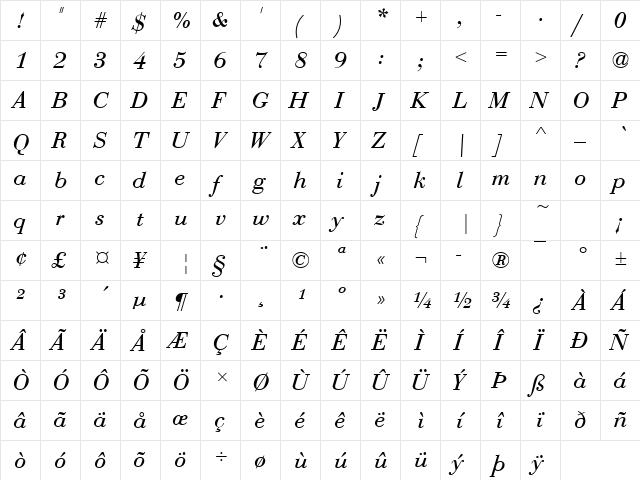
BauerBodT Italic
Design Context for BauerBodT Typeface
BauerBodT is a composed and adaptable typeface that performs quietly and consistently across a wide range of design contexts. The slanted form adds forward momentum and visual energy.